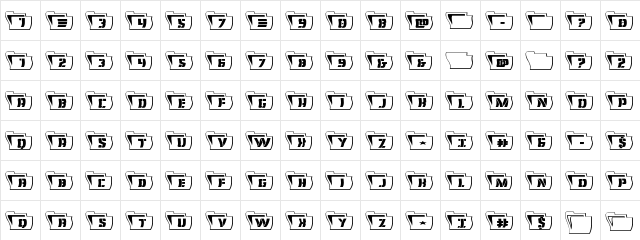
Eyes Only Outline Wavy Outline
| Style | Outline |
Design Context for Eyes Only Outline Wavy Typeface
Eyes Only Outline Wavy brings ornamental detail and strong personality to headlines and identities, where visual impact matters more than quiet functionality.
Font Pairing: Pair with a clean neutral sans-serif for body copy to let Eyes Only Outline Wavy's character lead without overwhelming the composition.
Pro Tip: Treat Eyes Only Outline Wavy as the centrepiece of your typographic hierarchy. One strong heading set in a decorative face can carry an entire layout.